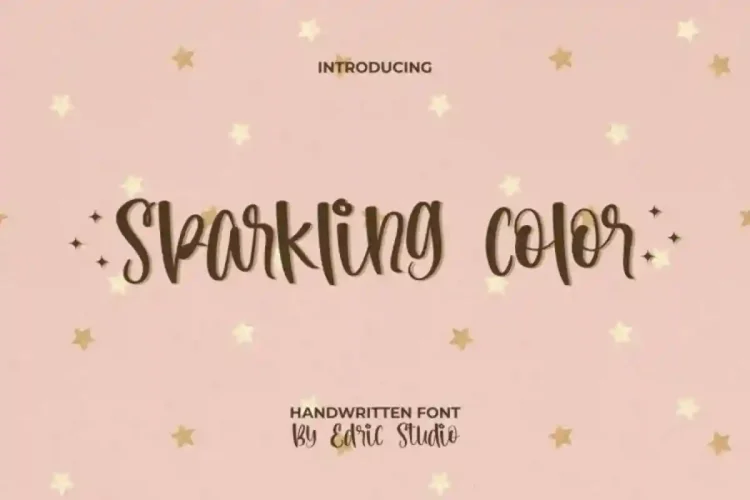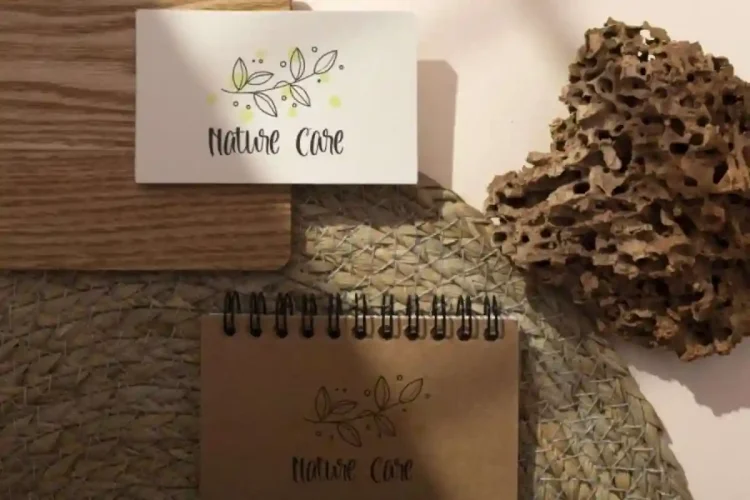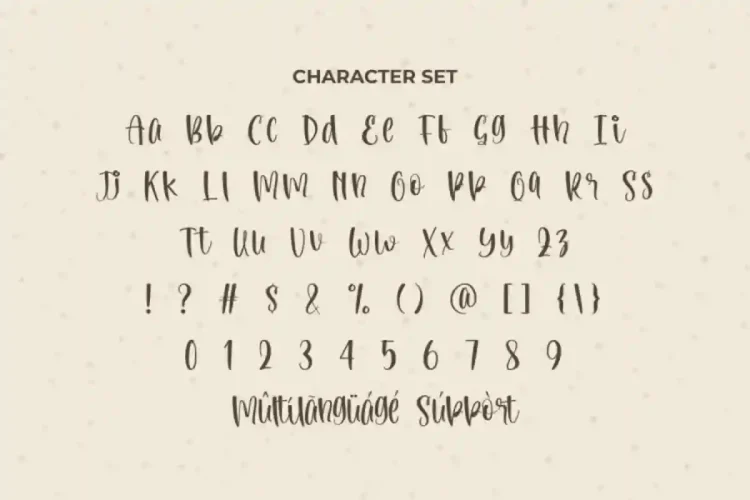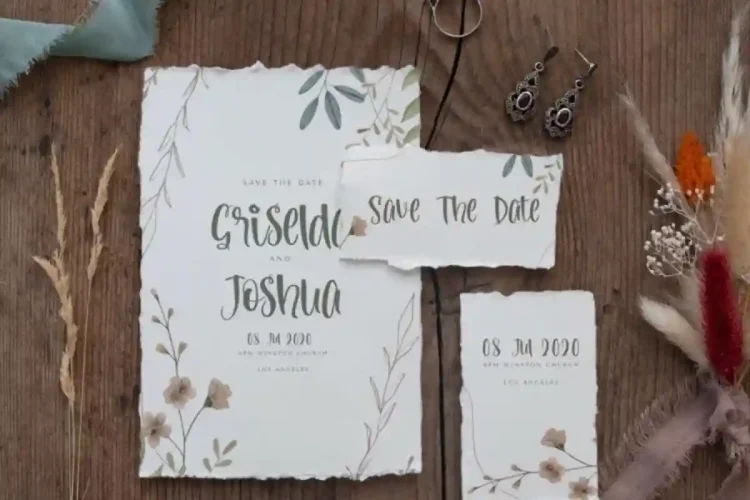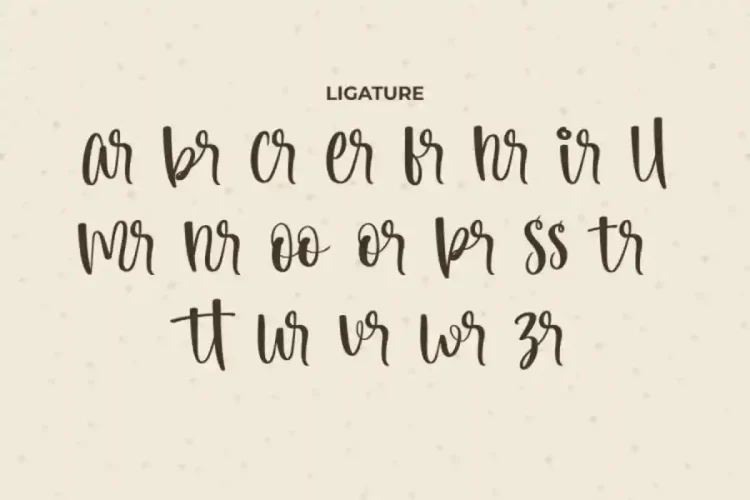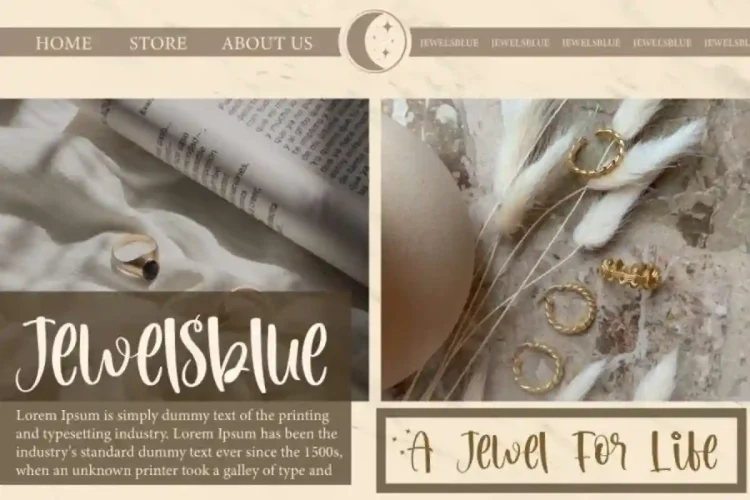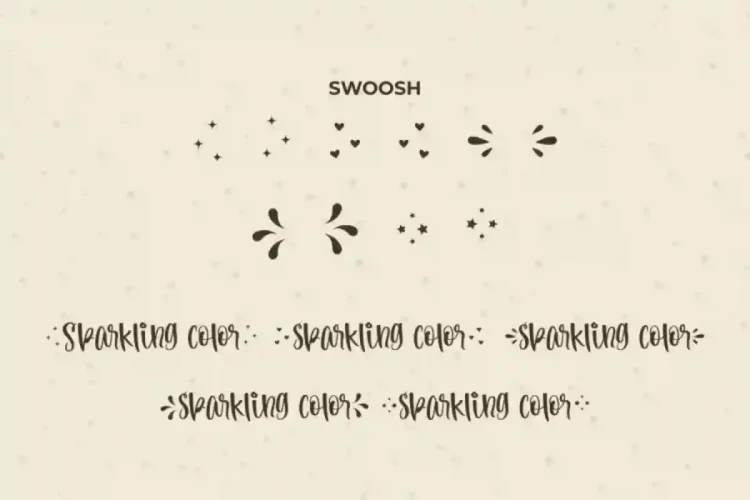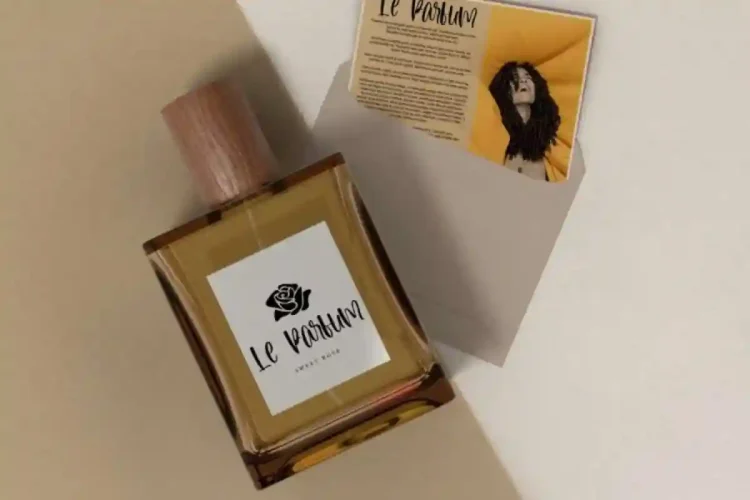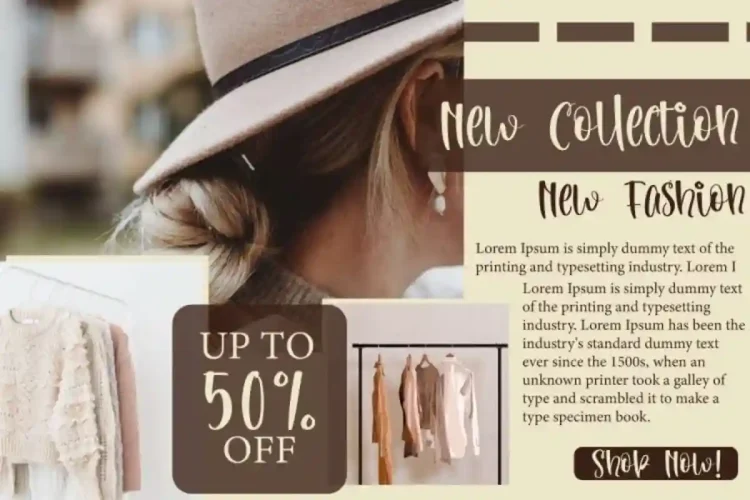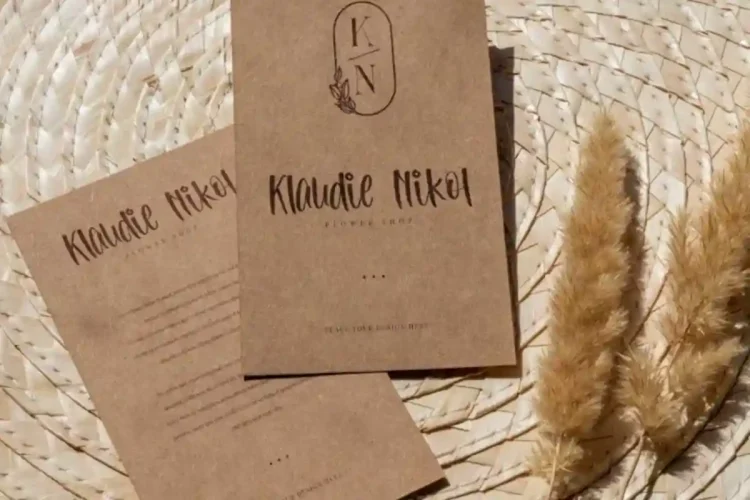
Sparkling Color Handwritting Font a stylish handwritten typeface designed by EdricStudio. Almost all industries will be match for this typeface including: accessories, architect, clothes & fashion, craft, florist, homeware, jewelry, perfume, publishing, wedding organizer, and more!
Sparkling Color Handwritting Font comes with a full set of Uppercase and Lowercase Basic Characters, Number, large range of Punctuation and Symbol, Ligature, and Swoosh. It has a stunning characters set, perfectly managed with well spaced and kerning.
Sparkling Color Handwriting Font is a playful typeface with unique decoration in each character. Ready to use both on Windows machine or Mac with simple installations. Compatible with PC & Mac, this font is easy to install and works seamlessly on Adobe Illustrator, Photoshop, InDesign, and even Microsoft Word. PUA Encode Characters means you can access all the glyphs and swashes with ease – Fully accessible without additional design software.